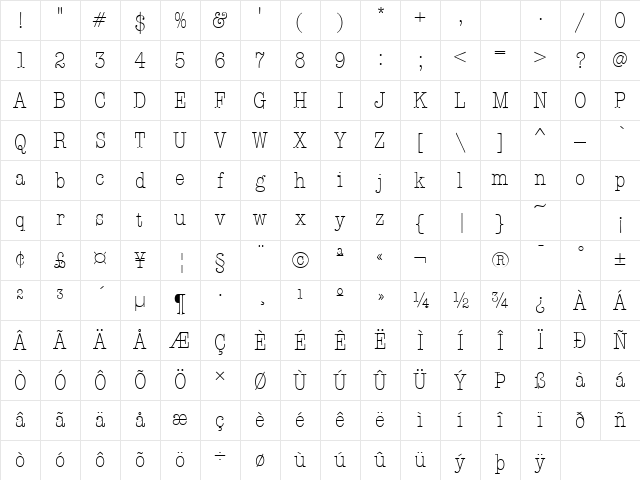
TypewriterCondL Regular
Design Context for TypewriterCondL
TypewriterCondL uses fixed-width spacing throughout, giving it the structured, systematic character associated with coding environments and technical documentation.